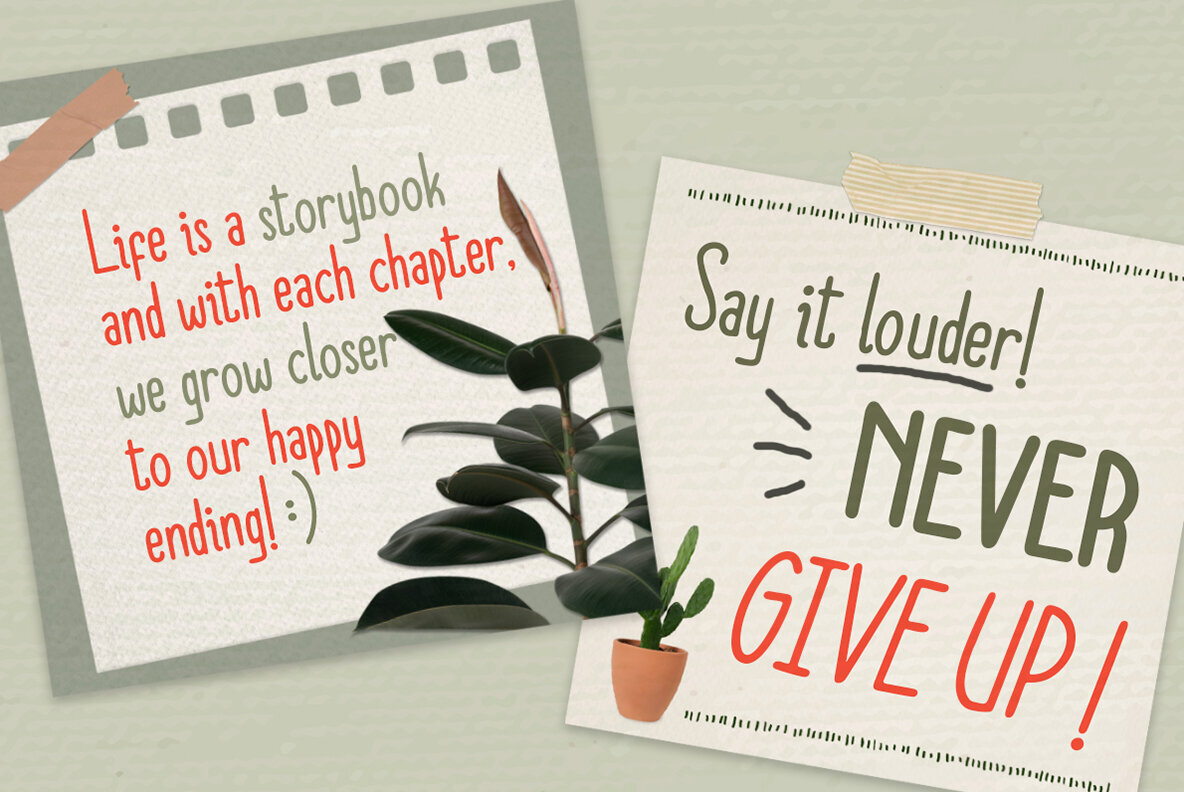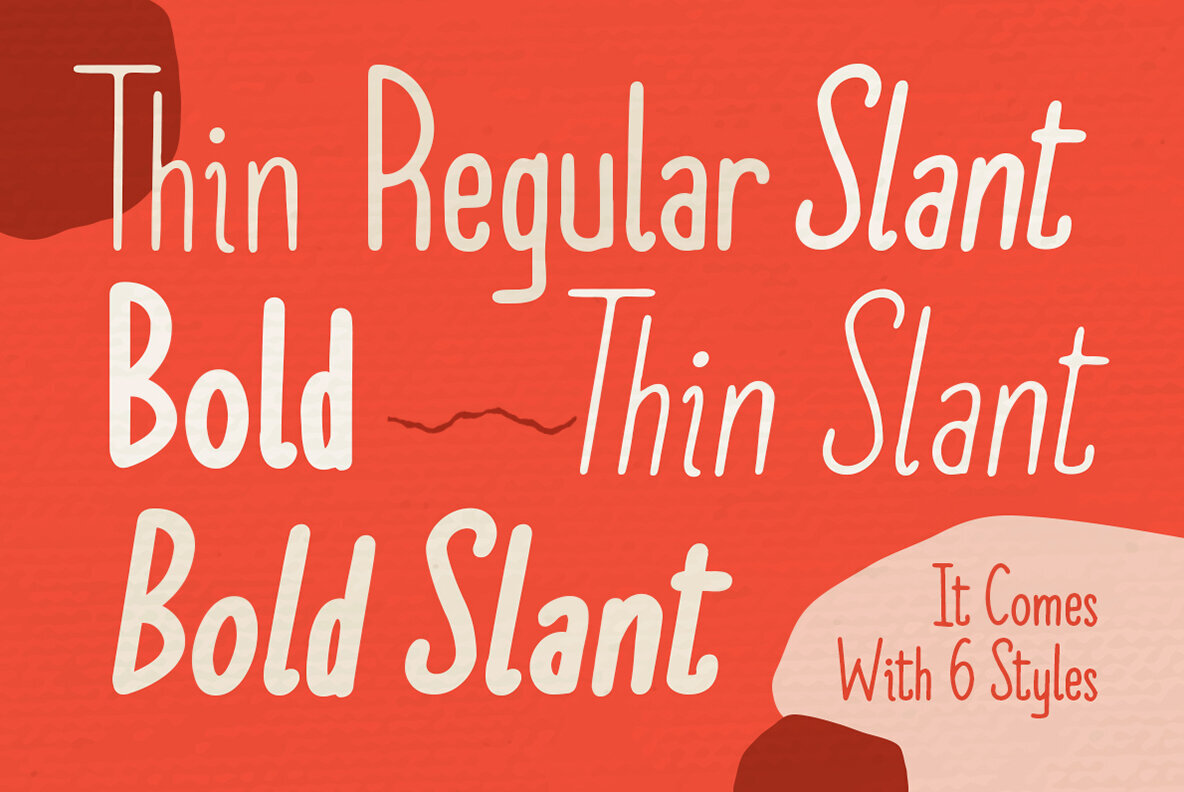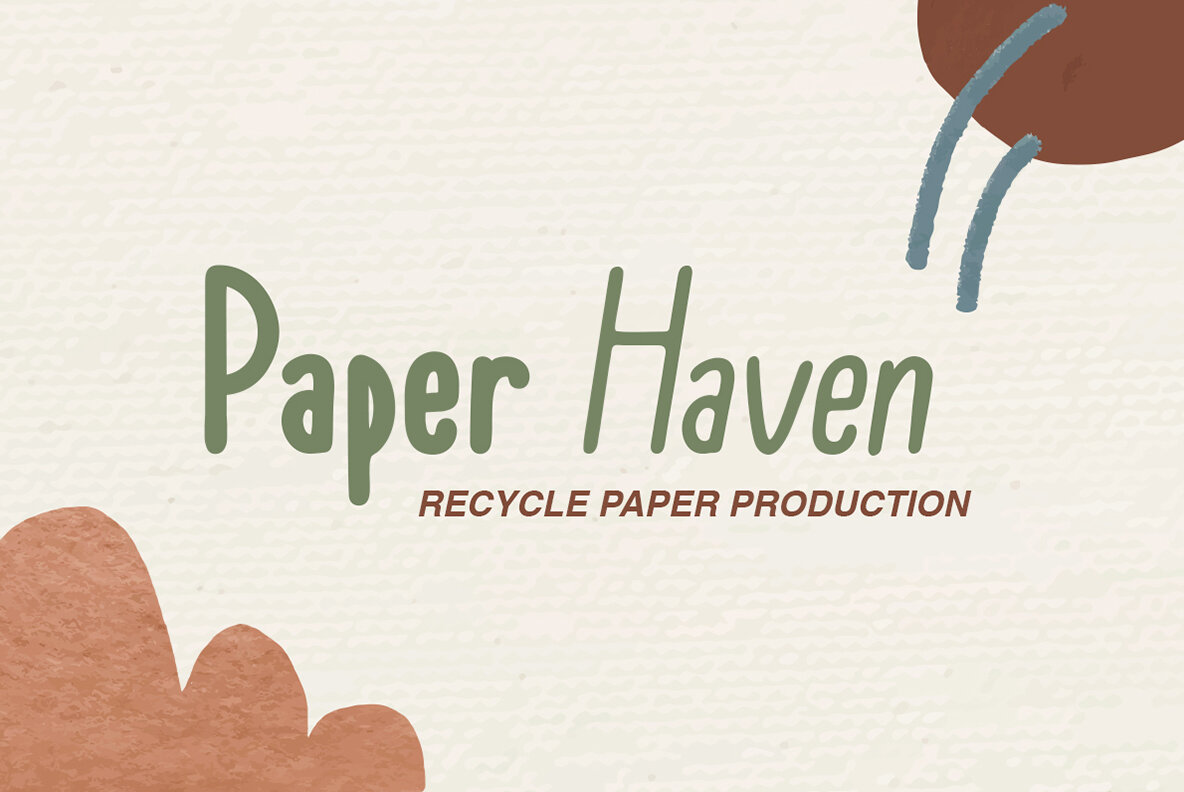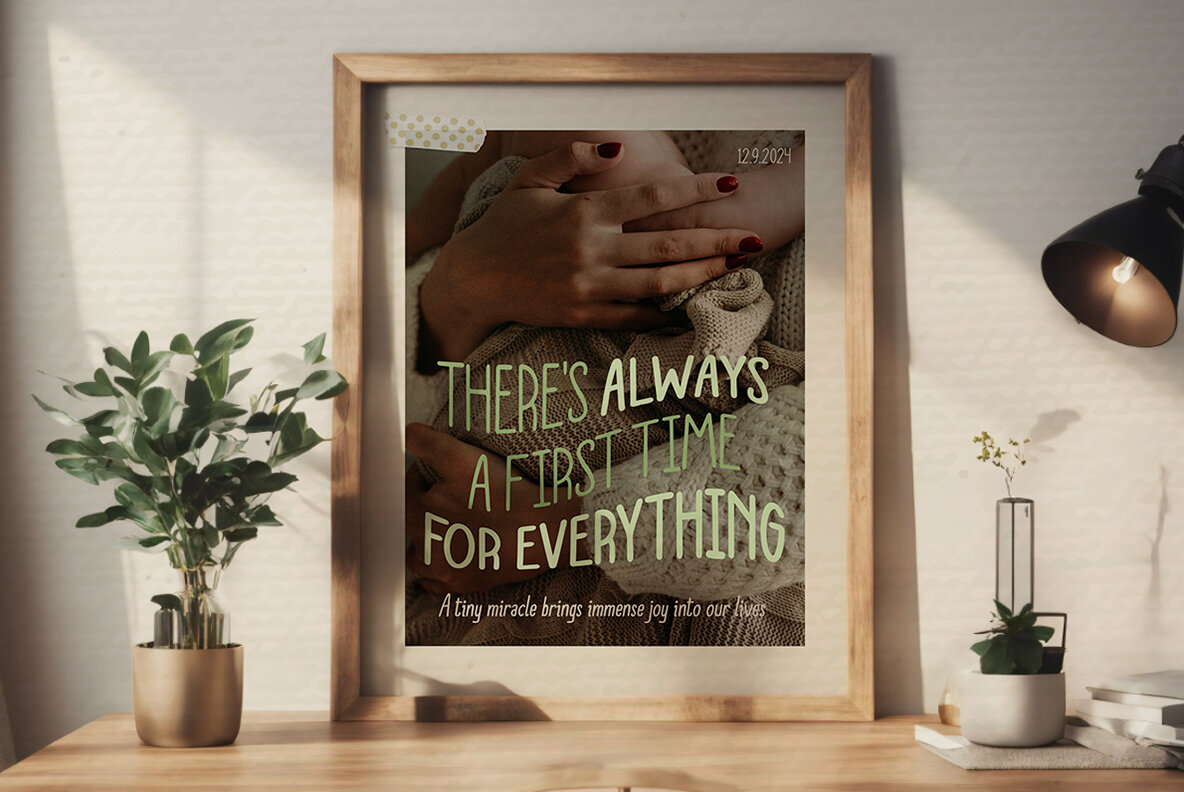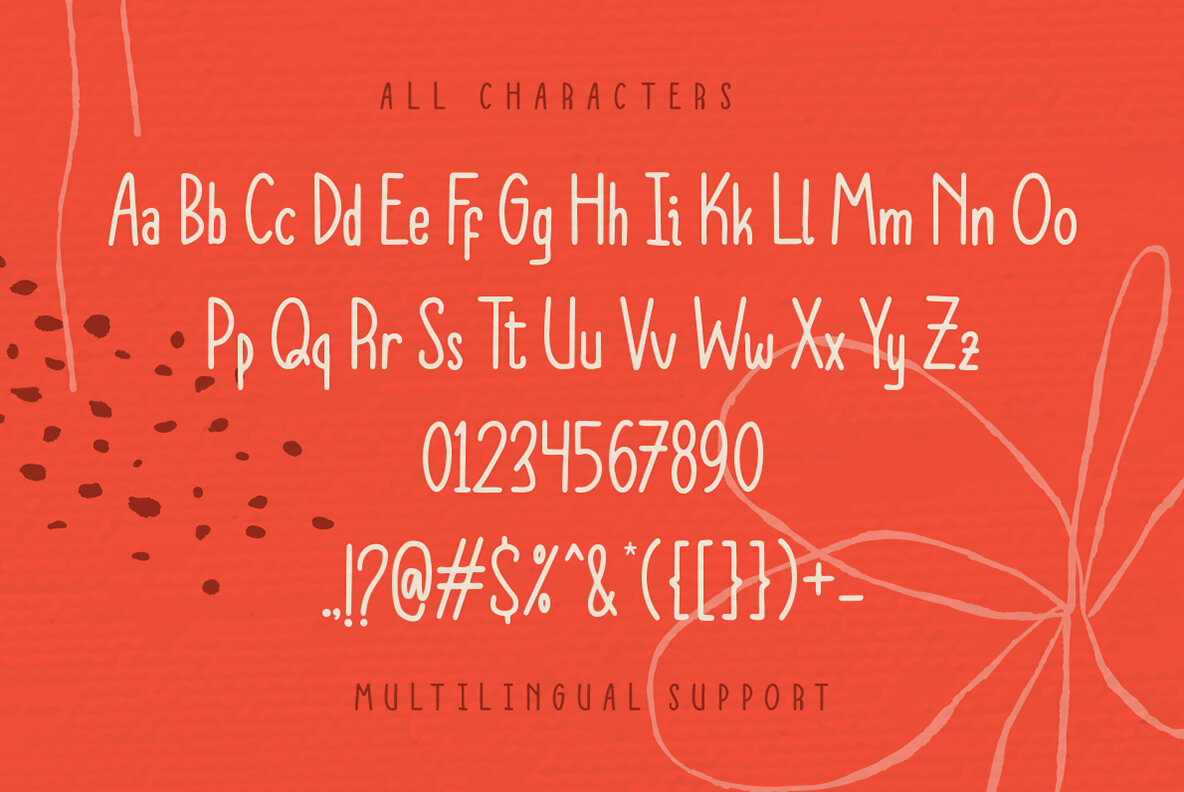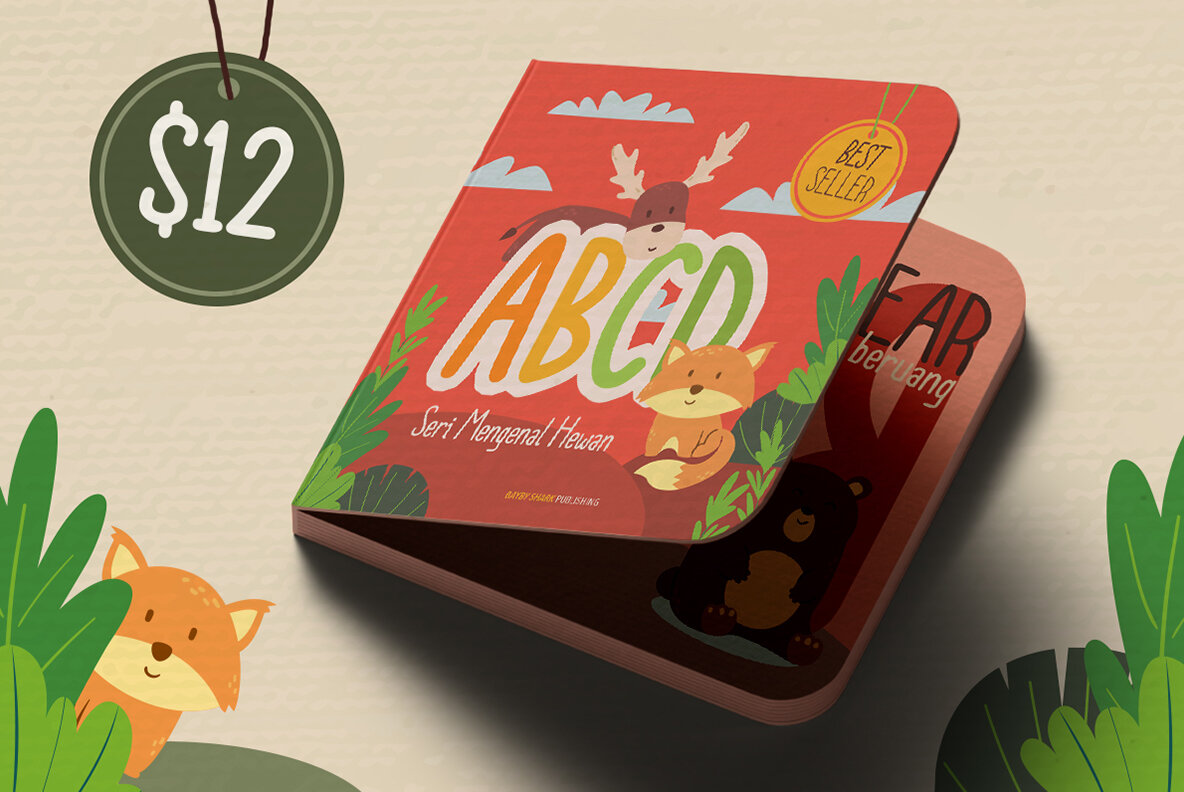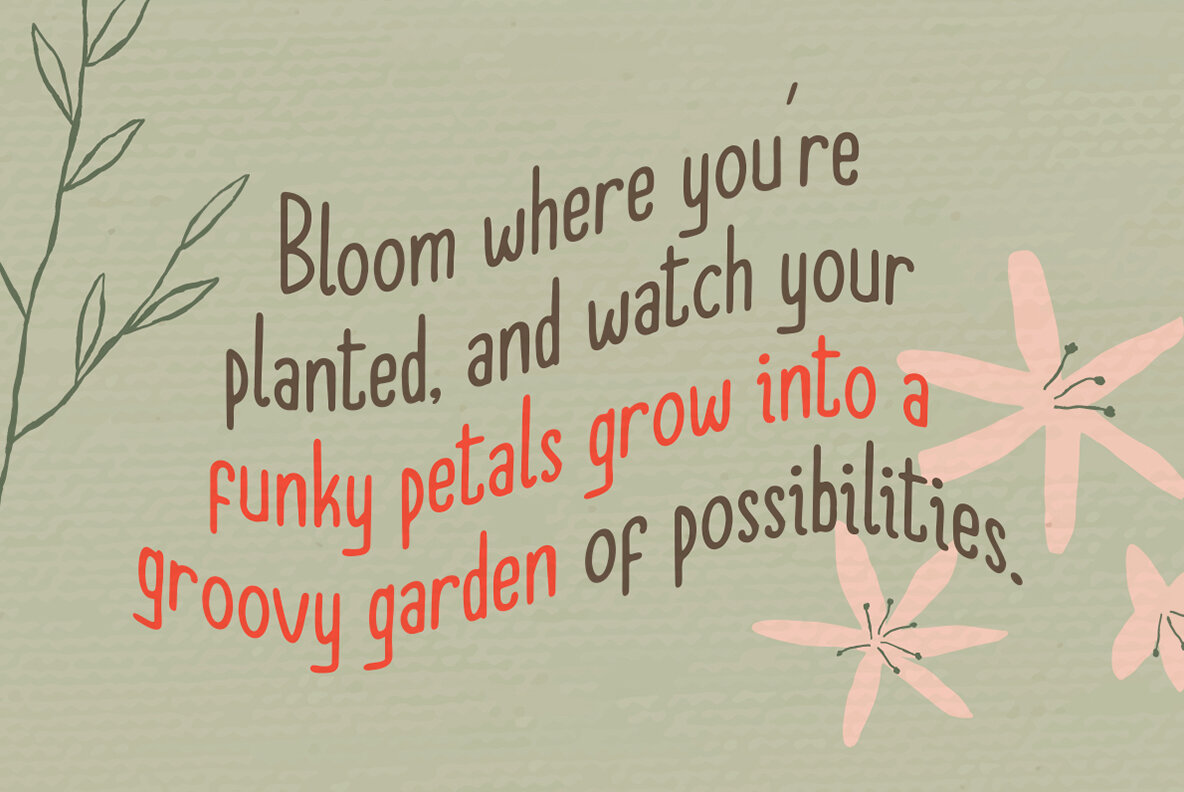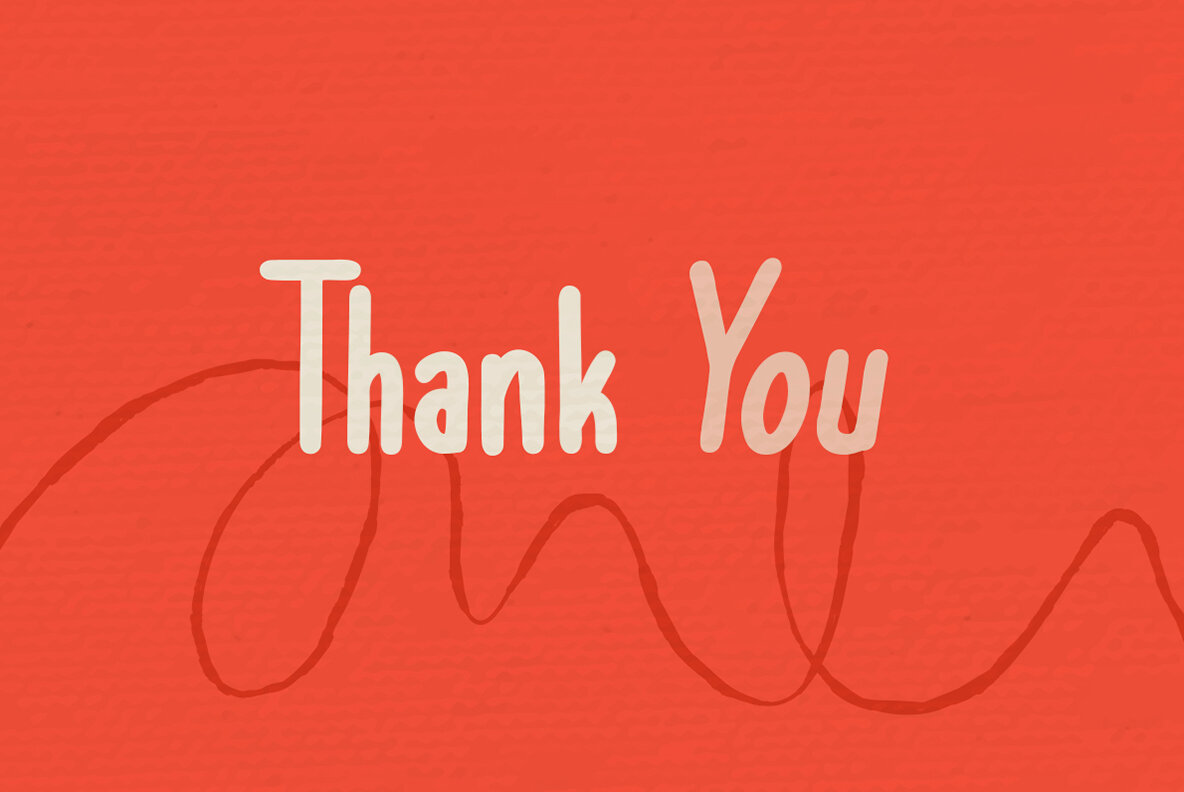
Final Notes Font
If you love writing in your digital journal, Final Notes is your new best friend. This relaxed handwriting font is both easygoing and stylish, offering six different styles to mix and match for an added touch of fun. Perfect for more than just journaling, Final Notes adds a casual charm to printed projects like books, headlines, and invitations, with its distinctive handwriting touch.Final Notes: Casual Handwriting Font with Versatile Styles